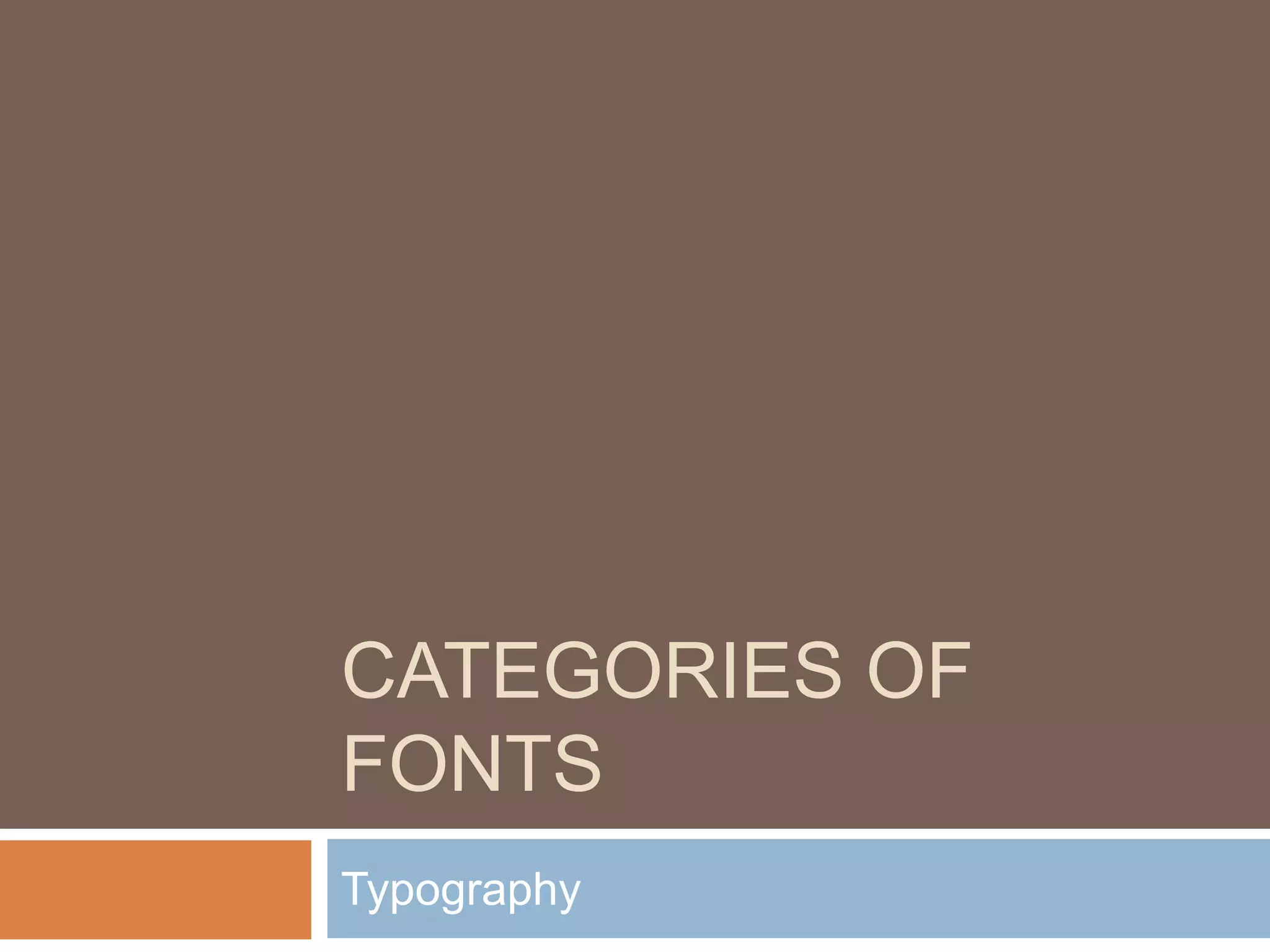
Categories of FontsTypography
Categorizing FontsUsing the terms learned for Parts of Fonts, you can analyze and categorize fonts when you see them.
These are the six main categories into which most fonts can be placedSans SerifScriptDecorativeOldstyleSlab SerifModern
OldstyleFonts have serifs.The serifs are always slanted on lowercase letters. These fonts always have diagonal stress on curves and a medium thick/thin transition (going from kind-of-thick to kind-of-thin.) These fonts make good body text. They are easy to read and hard to distinguish from each other.
Oldstyle ExampleBaskerville Old Faceis an Oldstyle font
Modern Fonts have serifs that are thin and flat on lowercase letters. The thick-thin transitions are dramatic - moving quickly from very thick to very thin and the curves all have a vertical stress. These fonts are very good for headlines.
Modern ExamplesBodoni MT Black is a good example of a Modern font.
Slab SerifFonts have little or no thick/thin transition at all. Because of this they are called monoweight fonts. The serifs are thick and horizontal; hence the term "slab." These fonts are dark and extremely easy to read. They are used for body text quite often.
Slab Serif ExamplesRockwell is an example of Slab Serif fonts.
Sans SerifFonts are also monoweight fonts. They have thick/thin transitions nor serifs. (The word "sans" means "without.")
Sans Serif ExampleEurostile is an example of a Sans Serif font.
ScriptFonts appear to have been hand written. They are usually used to add style to a design and not for body text. They can be very dramatic when mixed with more traditional type.
Script ExamplePalace Script is an example of a script font.
DecorativeFonts are ornamentals. They are never used as body text. They often include symbols or flairs that convey specific information or emotions. Use them carefully.
Decorative ExampleCastellar is an example of a decorative font.